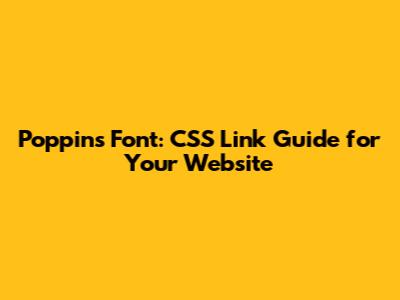
Poppins Font: CSS Link Guide For Your Website
Let's talk about fonts, guys! Specifically, Poppins, a super popular sans-serif typeface from Google Fonts. If you're looking to give your website a modern and clean feel, Poppins is definitely a font you should consider. It's versatile, legible, and, best of all, free to use! In this guide, we'll walk through exactly how to link Poppins to your website using CSS, so you can start using it in your projects right away. We'll cover everything from finding the right link on Google Fonts to implementing it in your CSS file. So, buckle up and let’s get started!
Why Choose Poppins?
Before we dive into the how-to, let's quickly discuss why Poppins is such a great choice. First off, it's incredibly readable. This is crucial for user experience – you want visitors to be able to easily read your content without straining their eyes. Poppins has a geometric design with clean lines, which makes it very easy on the eyes, especially for body text. Secondly, Poppins offers a variety of weights, from thin to bold. This gives you a lot of flexibility in your design. You can use different weights to create hierarchy, emphasize important information, and add visual interest to your pages. Imagine using a light weight for your body text and a bolder weight for your headings – it creates a nice visual contrast that guides the reader. Thirdly, as mentioned earlier, Poppins is a Google Font. This means it's incredibly easy to implement on your website. Google Fonts hosts the font files, so you don't have to worry about downloading and hosting them yourself. This saves you bandwidth and ensures that the font is delivered quickly to your users. Finally, Poppins is free! You can use it for personal and commercial projects without paying any licensing fees. This makes it a fantastic option for startups, small businesses, and anyone who wants to create a professional-looking website on a budget. Seriously, what’s not to love? Another reason to choose Poppins is its wide language support. This font supports a broad range of characters and alphabets, making it suitable for websites targeting diverse audiences. This is particularly important if your website needs to cater to users who speak different languages, ensuring that your content is displayed correctly and legibly for everyone. Its global accessibility is a significant advantage for international businesses or projects that aim to reach a worldwide audience. So, if you’re aiming for a font that’s not only stylish and functional but also globally inclusive, Poppins is an excellent choice.
5. Use Poppins in Your CSS
Finally, it's time to use Poppins in your CSS! Open your CSS file and use the font-family property to specify Poppins as the font for your desired elements. Here's an example:
In this example, we're setting Poppins as the default font for the entire body of the page. We're also setting it as the font for h1, h2, and h3 headings, and using the font-weight property to specify the bold weight (700) for these headings. The sans-serif part is a fallback font, which will be used if Poppins is not available for some reason. It's always a good practice to include a fallback font to ensure that your text is still readable even if the primary font fails to load. You can customize the font-family and font-weight properties for different elements to achieve the desired typography for your website. Remember to experiment with different weights and styles to find the perfect look for your project. Once you save your CSS file and refresh your website, you should see Poppins in action!
Optimizing Font Loading for Performance
While linking Poppins via Google Fonts is convenient, it's important to optimize font loading for performance. Here are a few tips:
Wrapping Up
So there you have it! A complete guide to linking Poppins to your website using CSS. It's a simple process, but it can make a big difference in the overall look and feel of your site. Remember to choose the right styles, optimize for performance, and troubleshoot any issues that may arise. With a little bit of effort, you can create a website that looks professional, modern, and engaging. Now go forth and create beautiful websites with Poppins! Good luck, and have fun experimenting with typography!